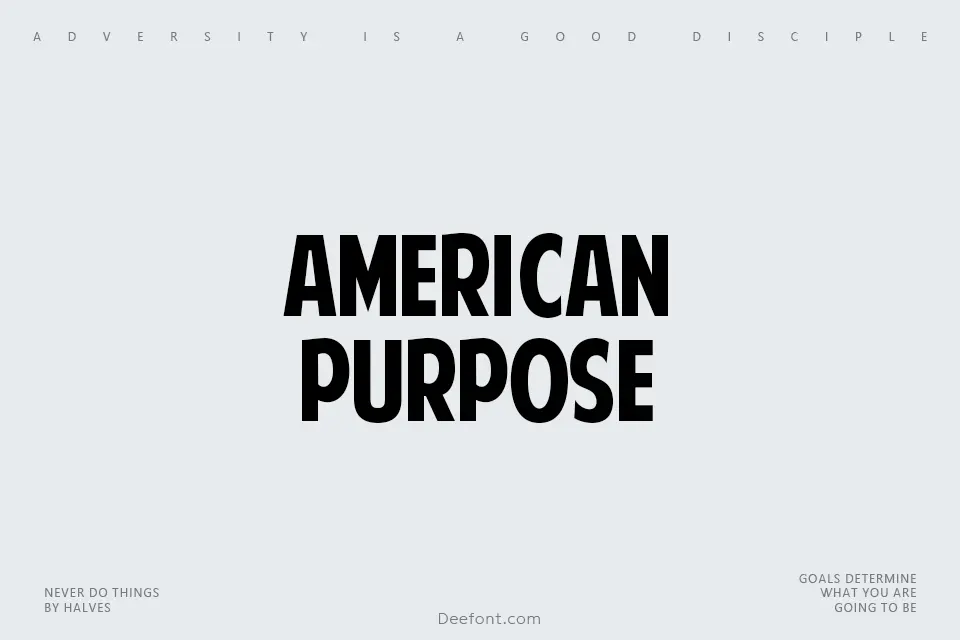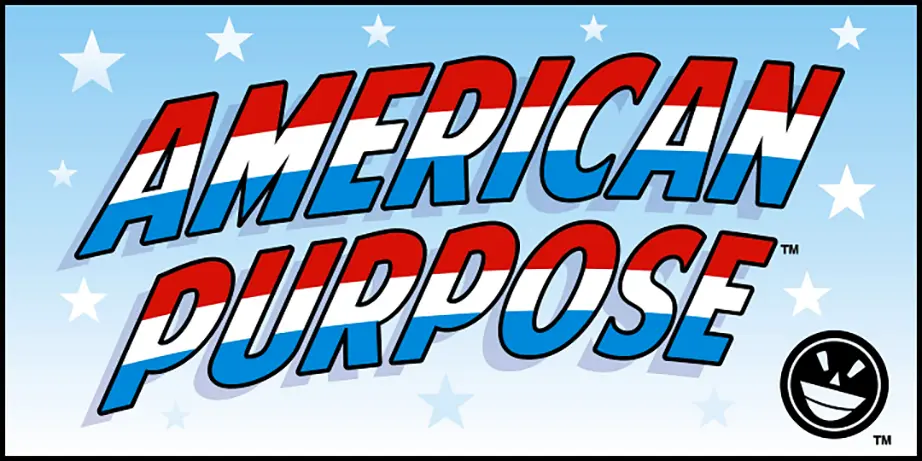
American Purpose Font
American Purpose is a bold and versatile display font designed by Michael G. Adkins for the Fontry. This dynamic typeface combines strong geometric elements with playful energy, making it ideal for eye-catching headlines, posters, and creative projects. The font features multiple stylistic variations including stripe effects and italic options, allowing designers to craft powerful visual compositions. With its distinctive character and excellent path-following capabilities, American Purpose brings personality and impact to any design while maintaining excellent readability across different scales.